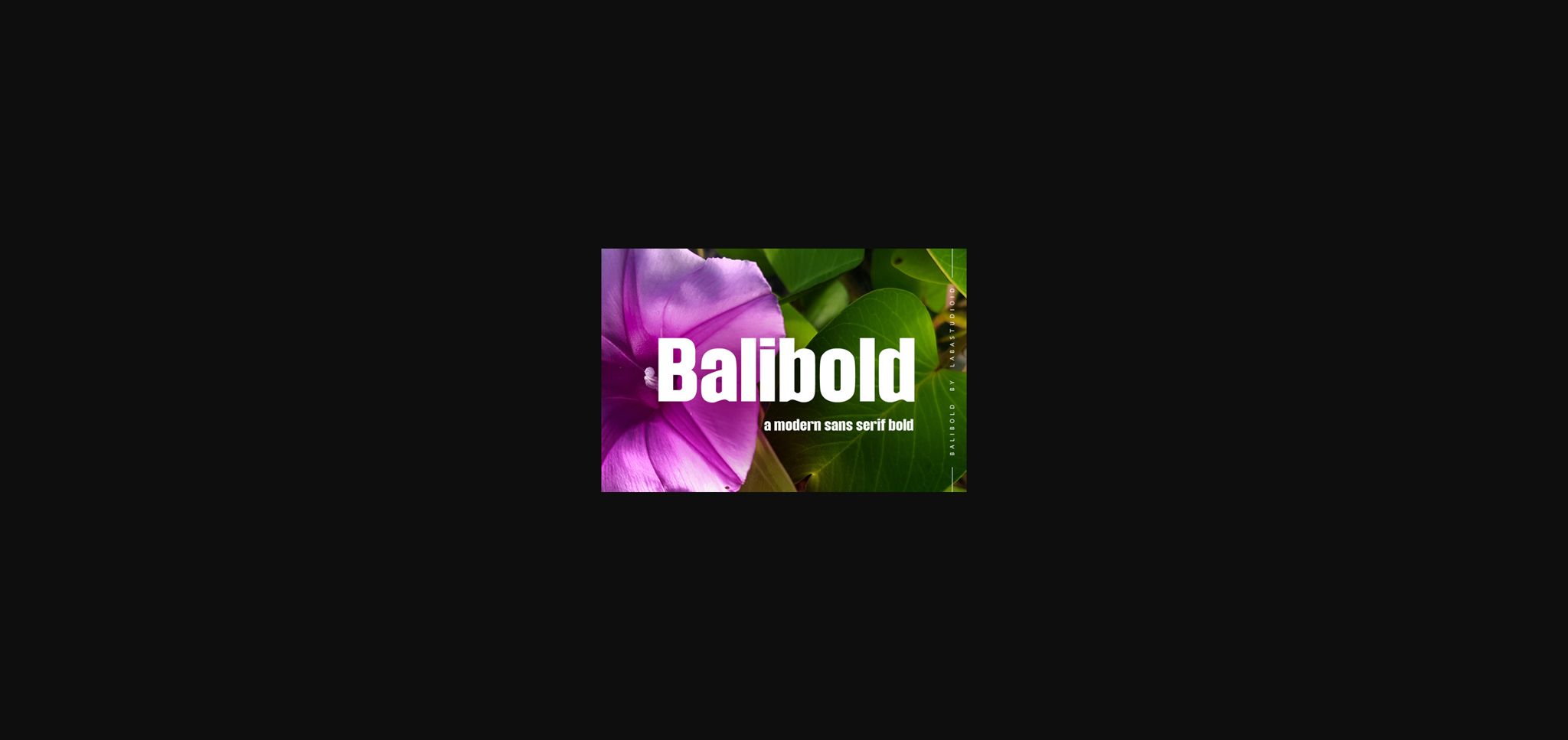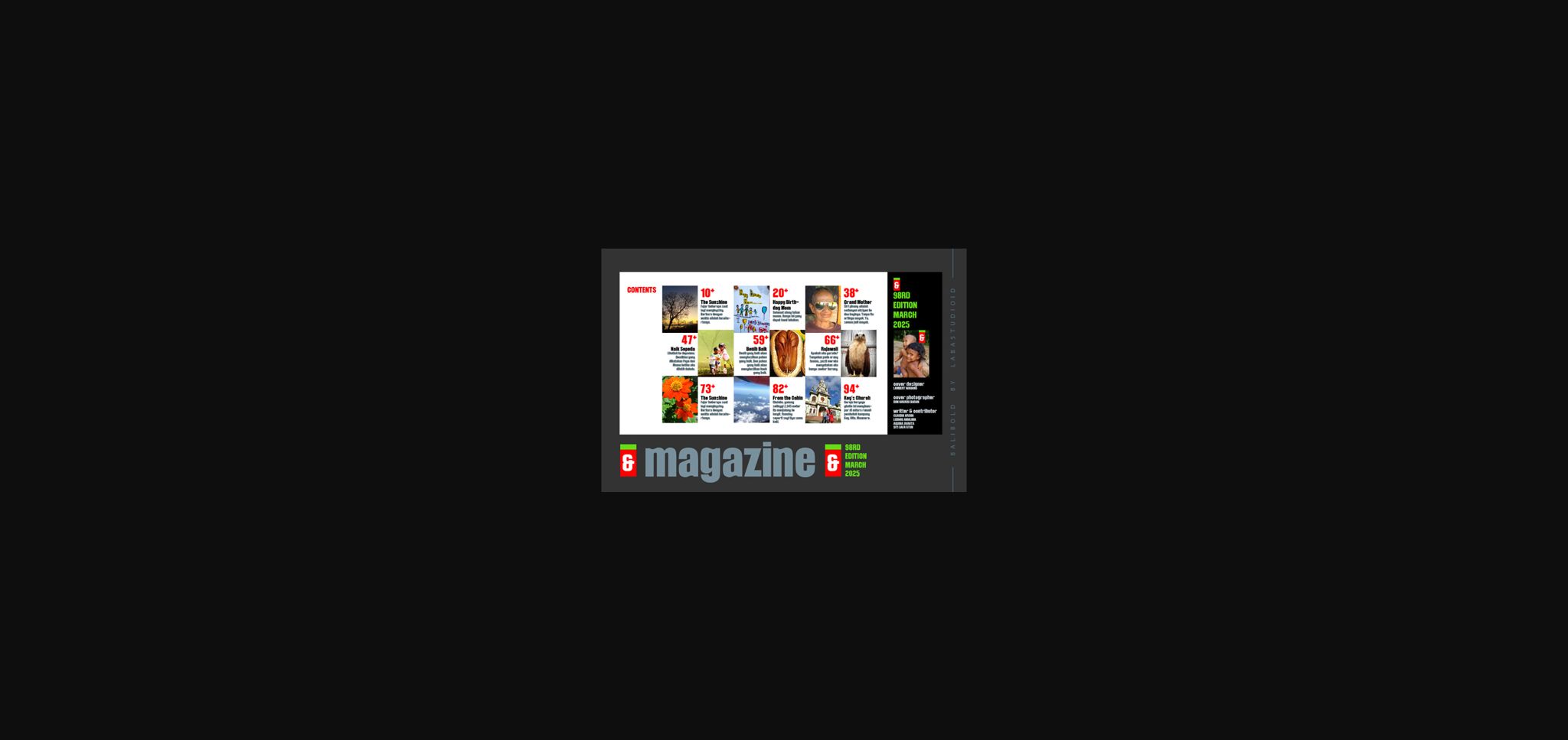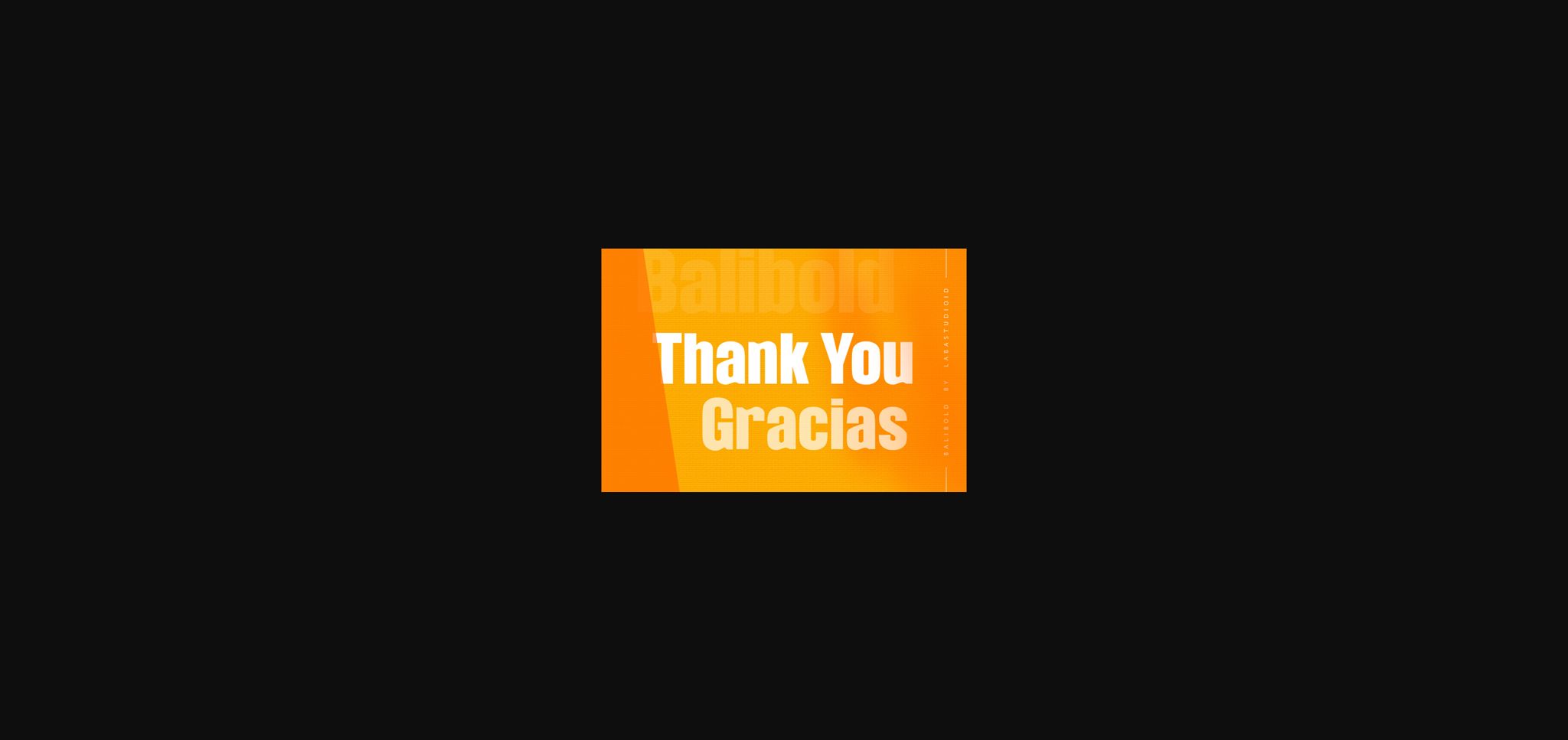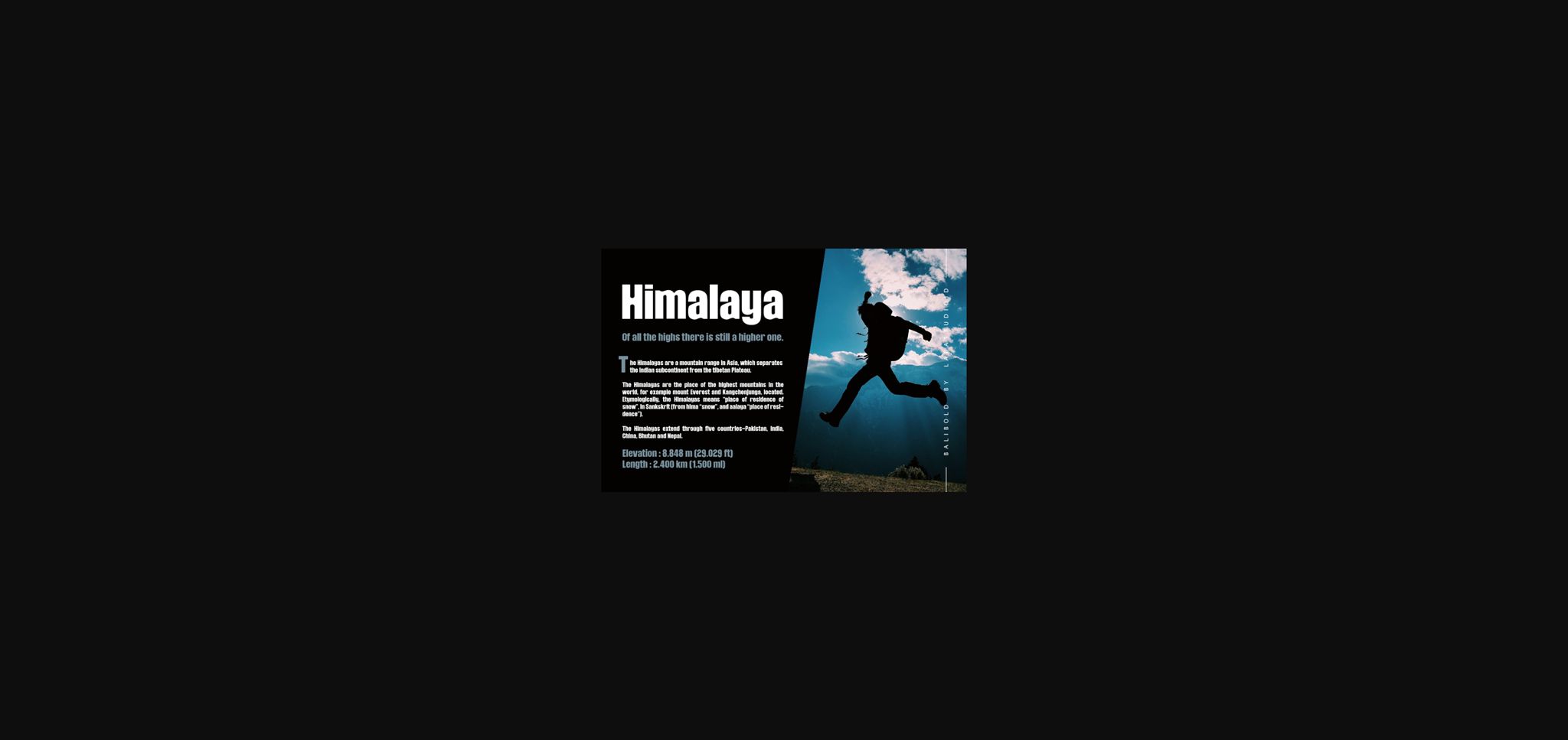
Balibold Font
About Balibold Font
Balibold is a bold sans serif font, carefully handcrafted to become a true favorite. Its casual charm makes it appear wonderfully down-to-earth, readable and, ultimately, incredibly versatile.